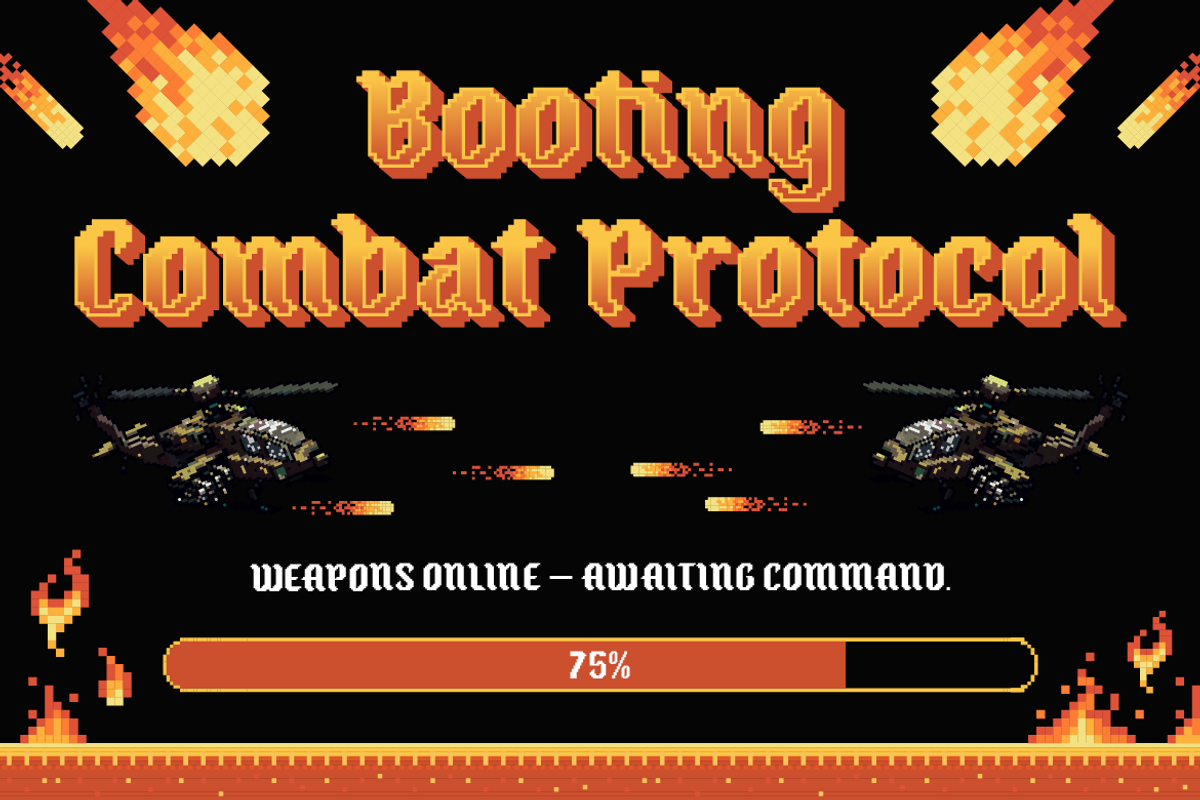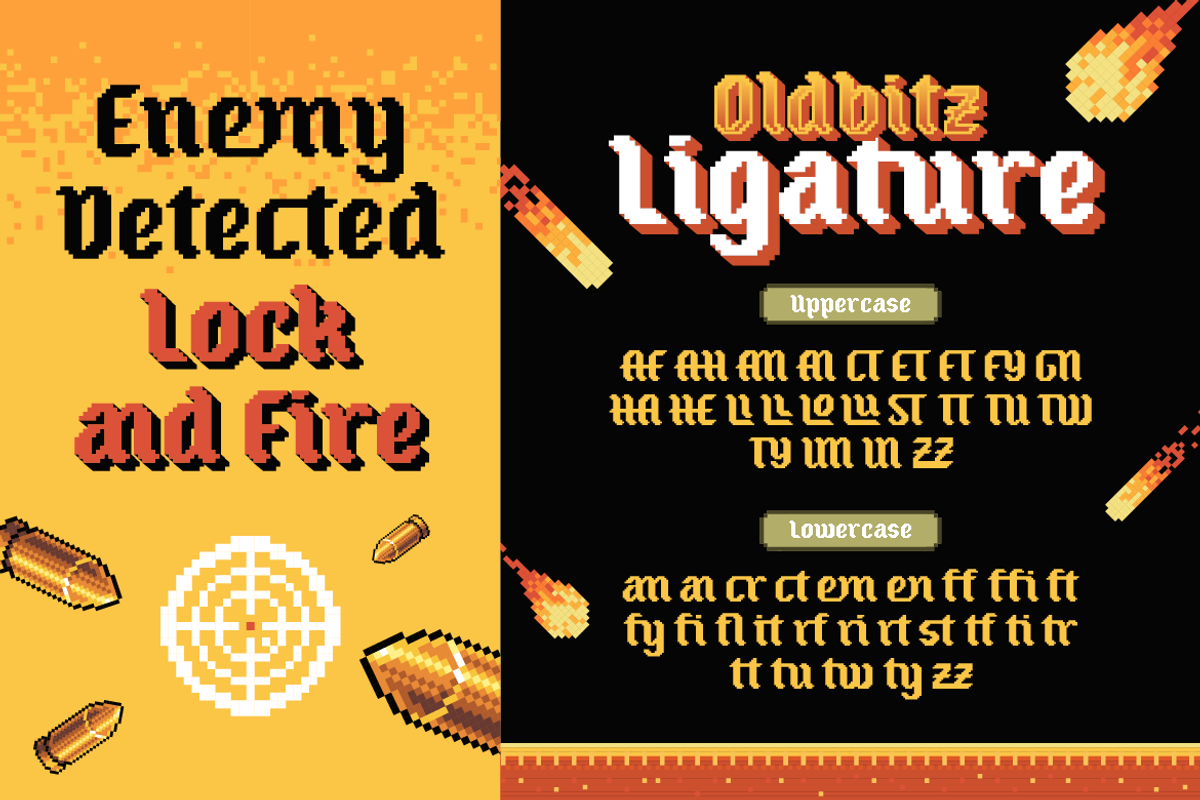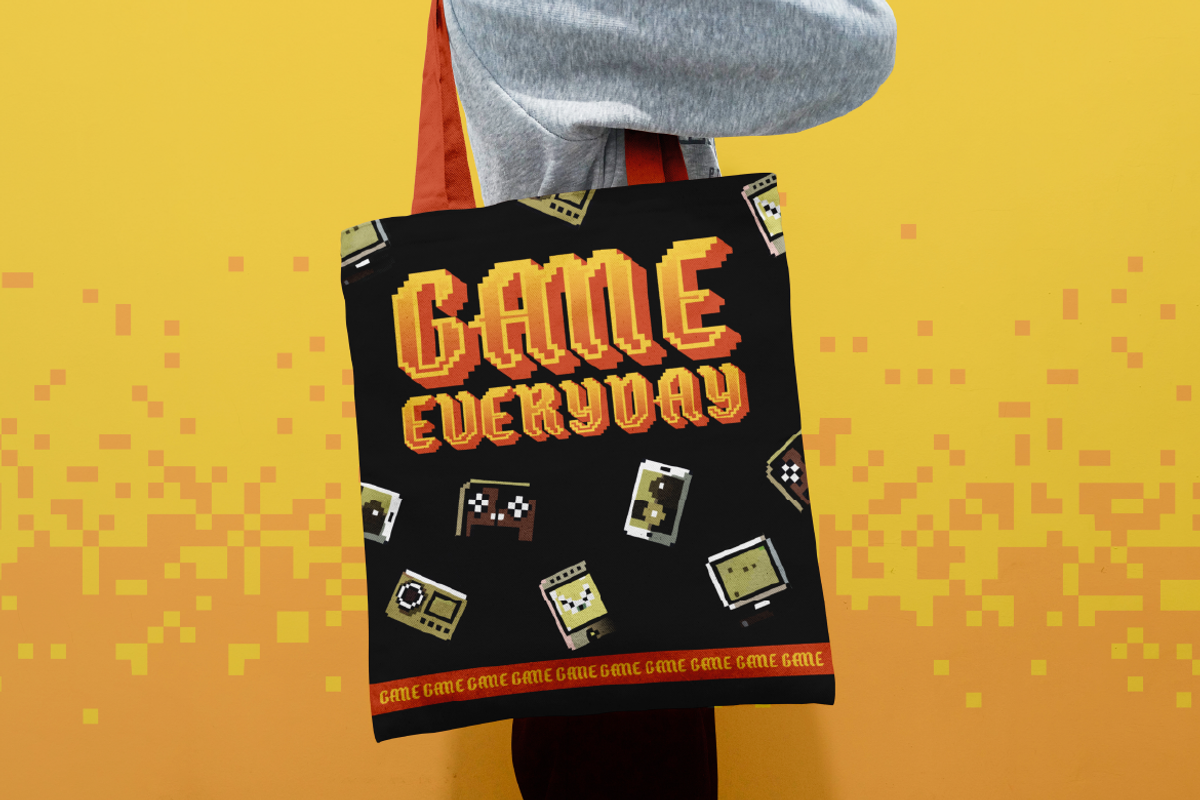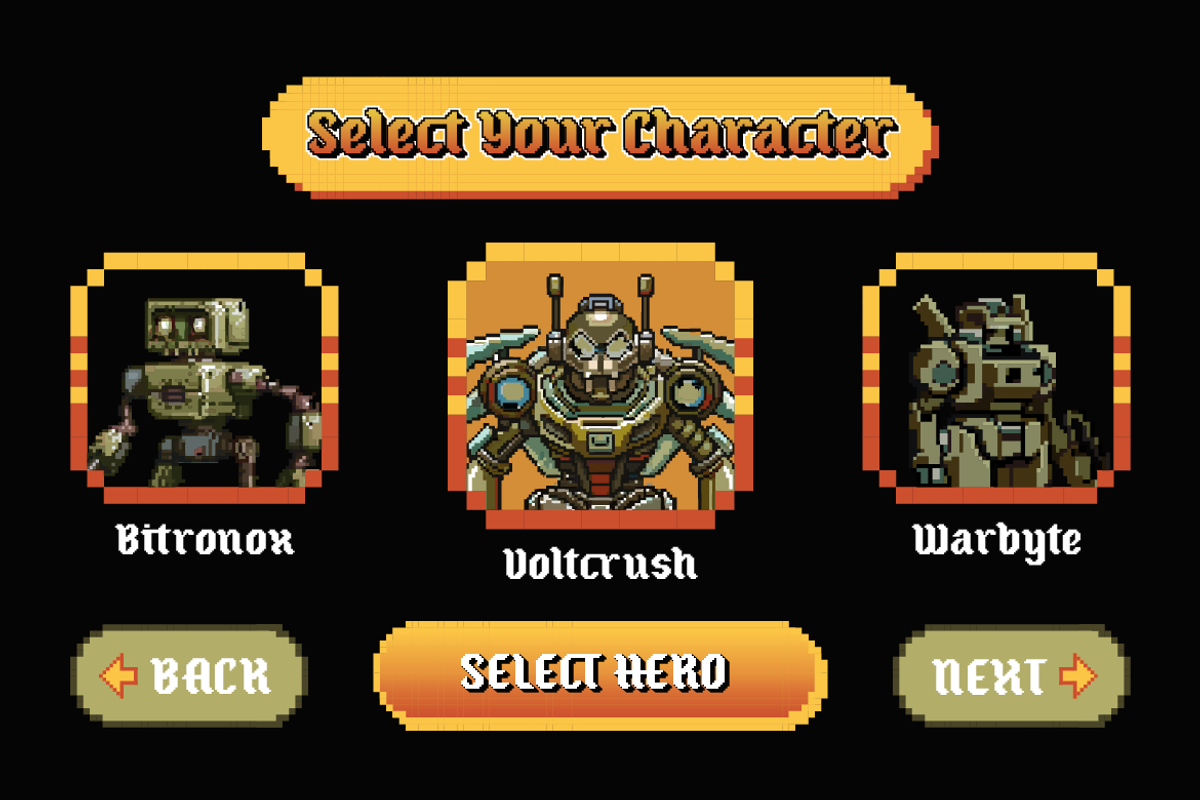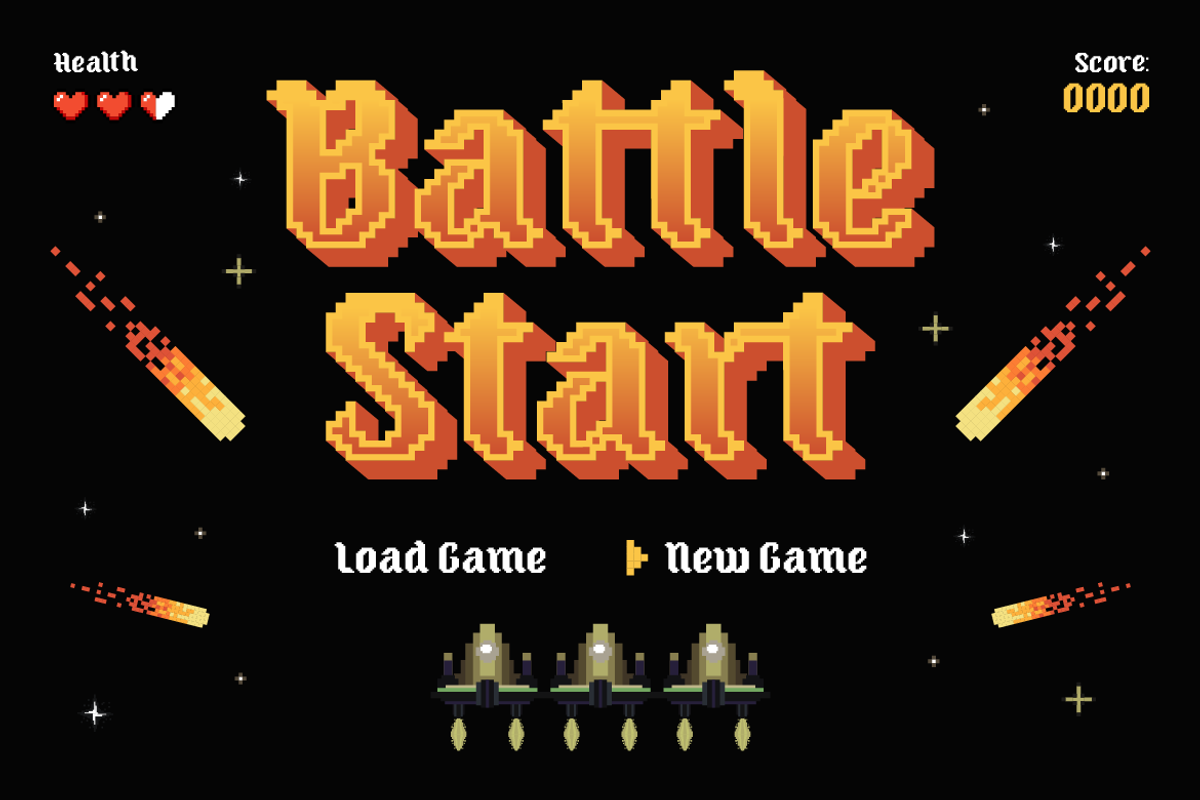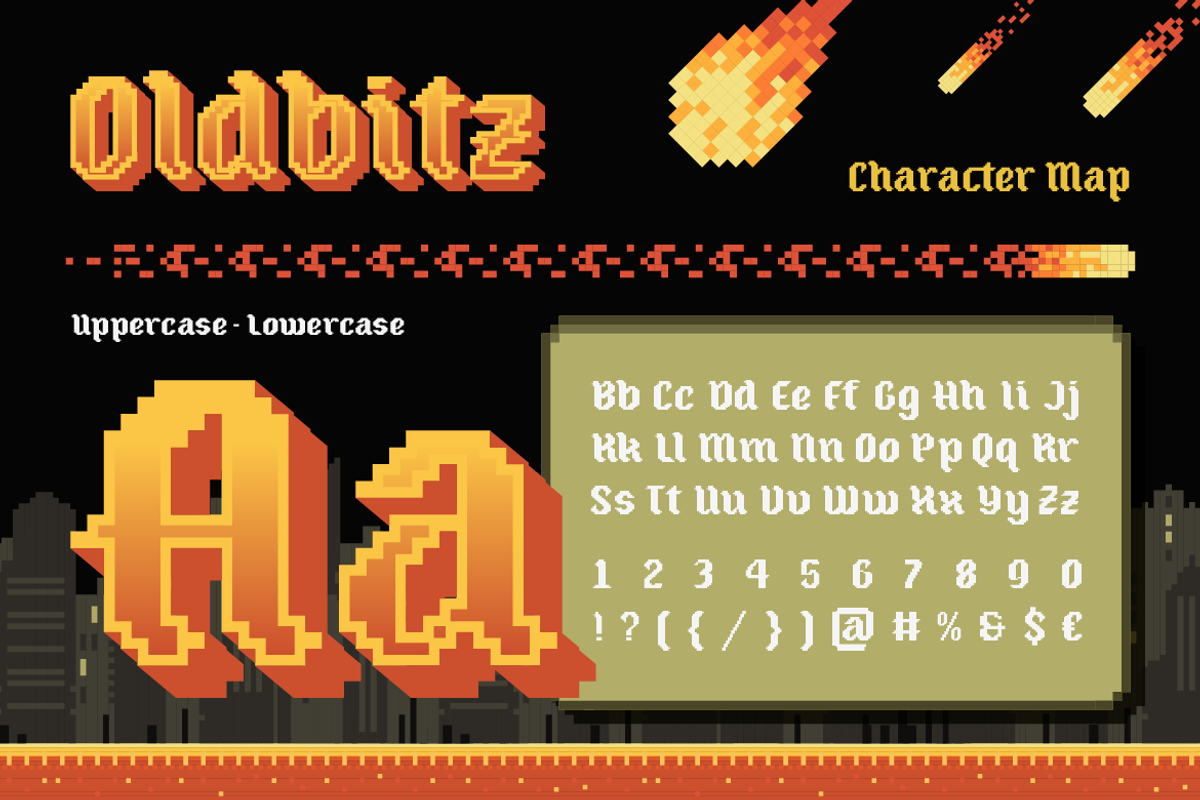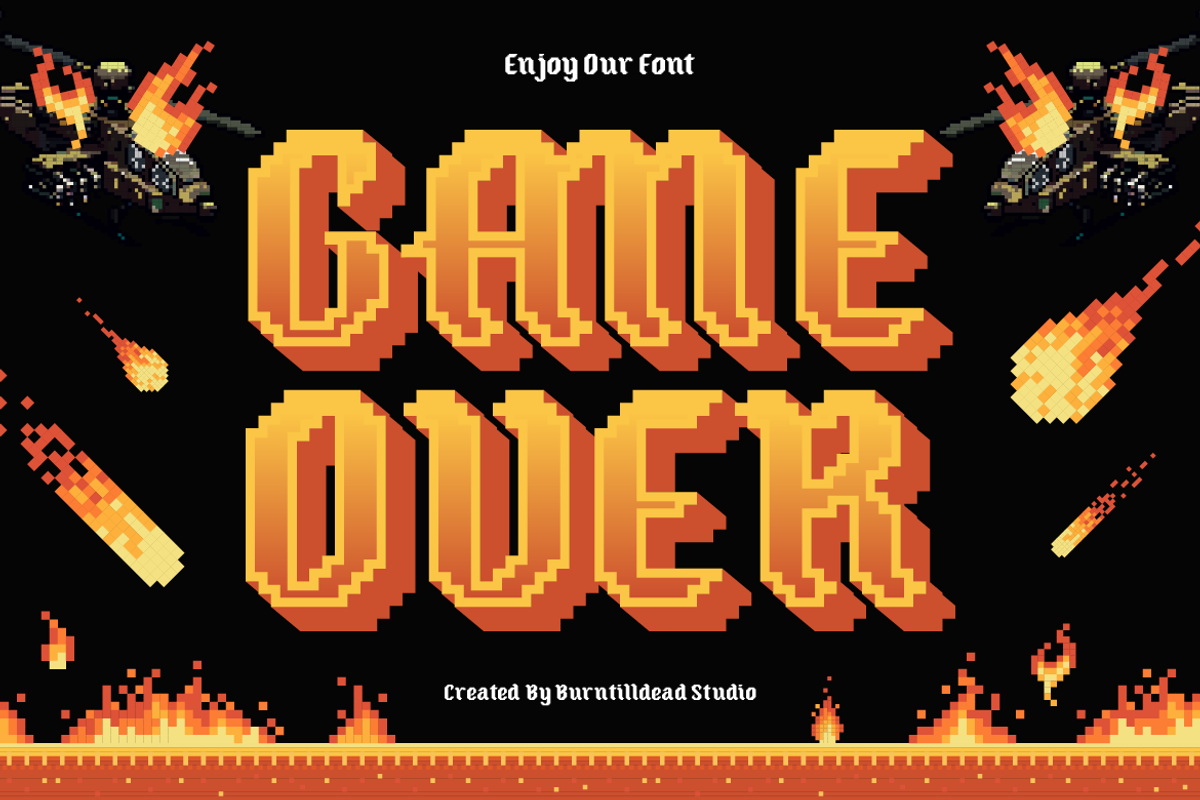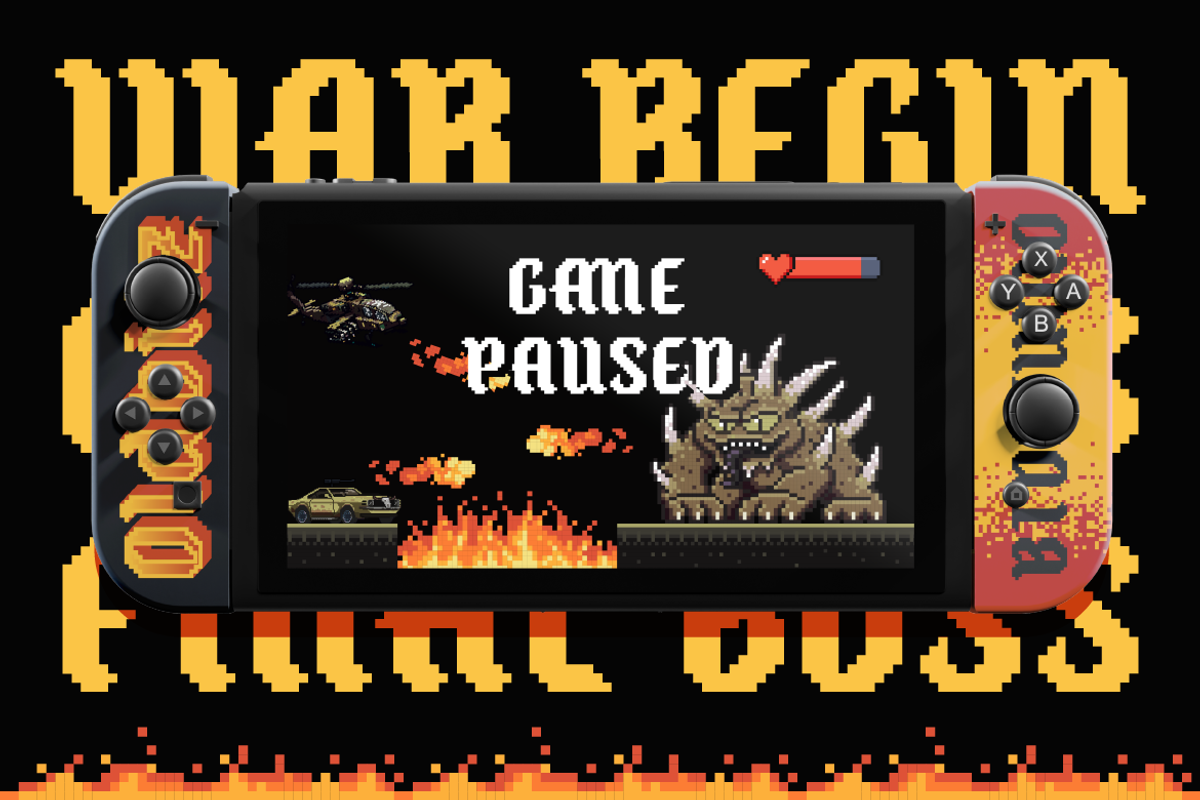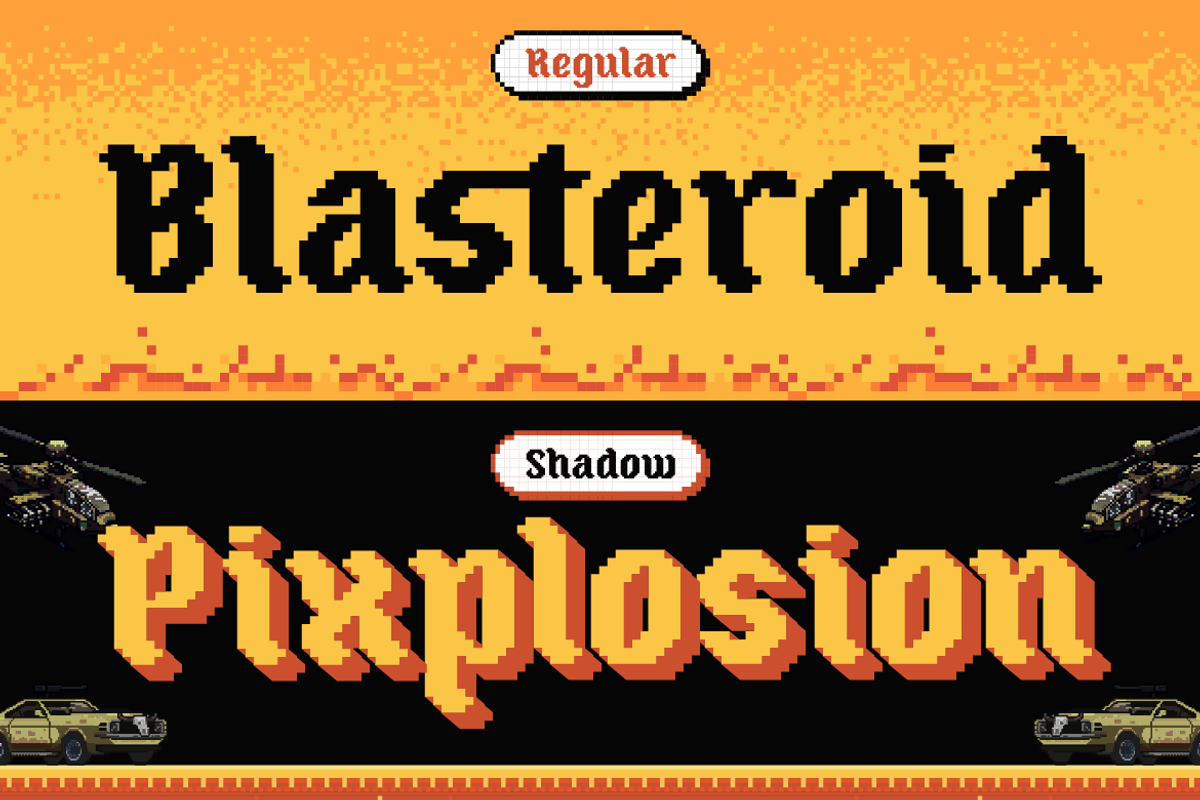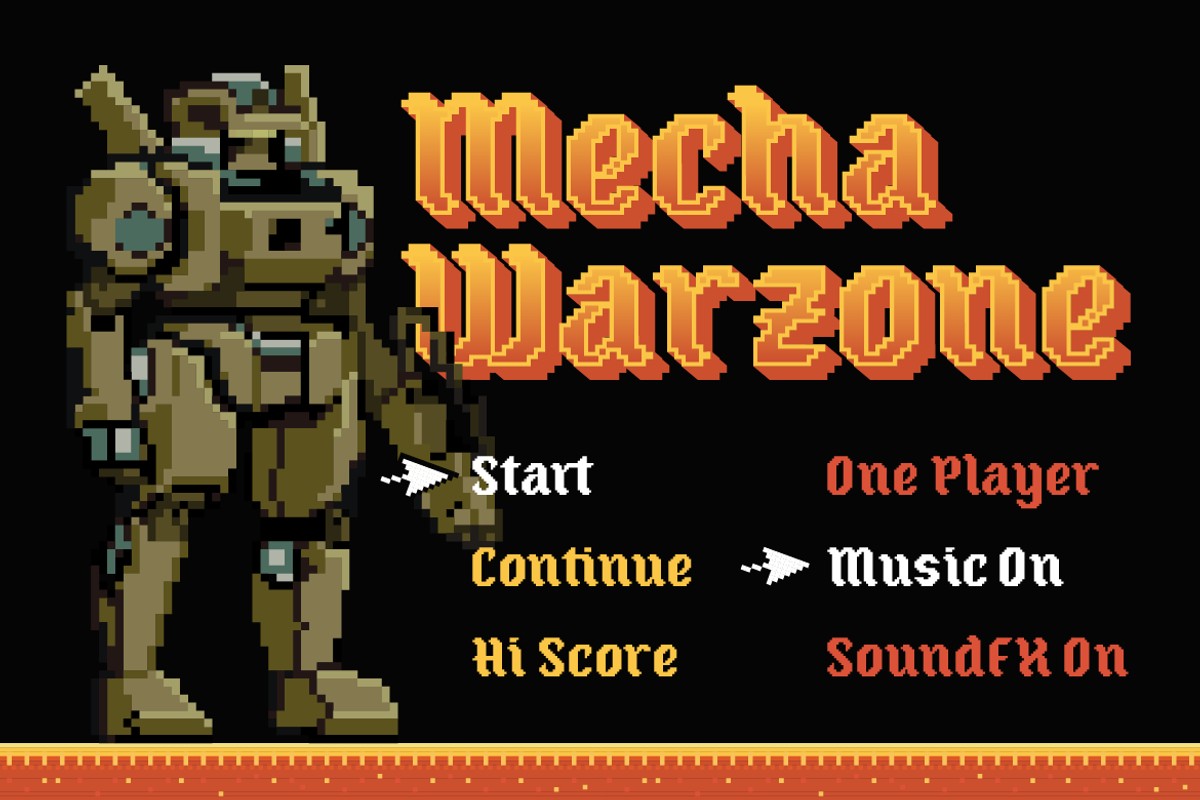
Oldbitz - Pixel Font
Time to bring back the golden age of pixels with Oldbitz! This bold display font mixes retro arcade vibes with chunky pixel strokes and a touch of vintage gothic style. Oldbitz comes in 2 styles to fit your creative mood, Regular (clean, strong, and perfect for straightforward titles). Shadow (playful, bold, with a retro 3D arcade punch). So if you’re designing game covers, posters, album art, or anything that craves nostalgic vibes, Oldbitz will make your design unique and stand out. Bring back the pixels, bring back the fun.
A - Z set (Uppercase & Lowercase)
Number
Alternate
Ligature
Oldbitz Characters Map